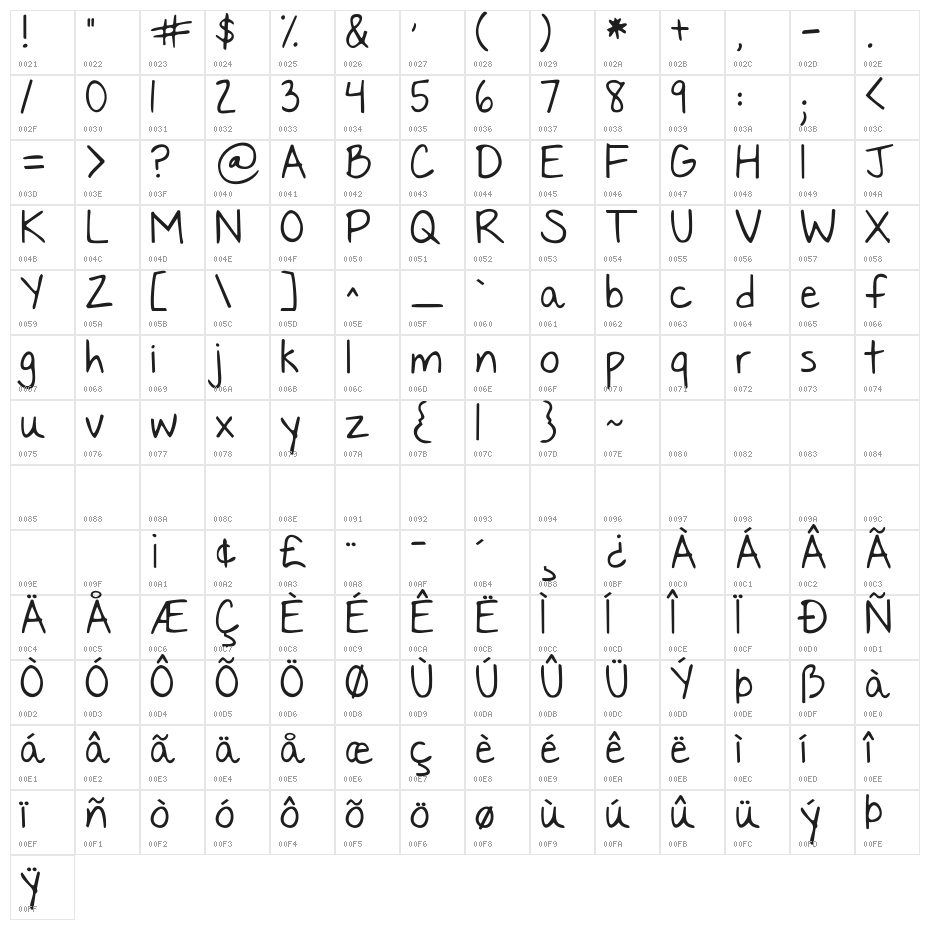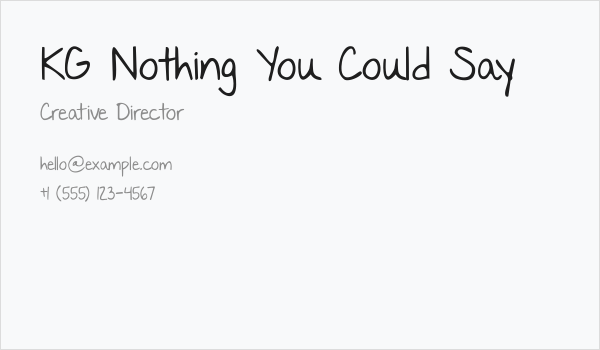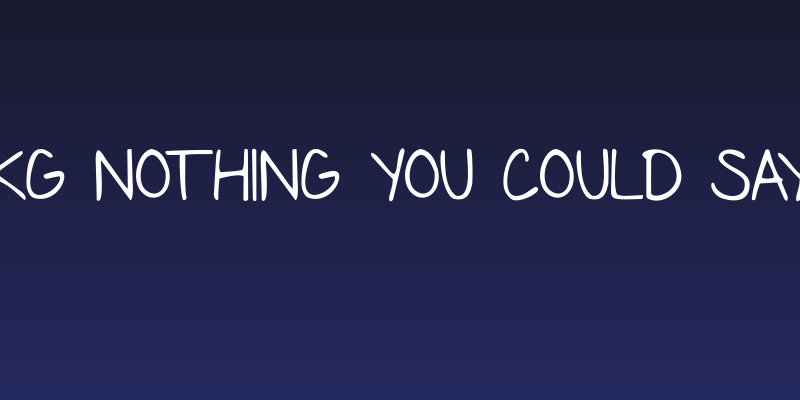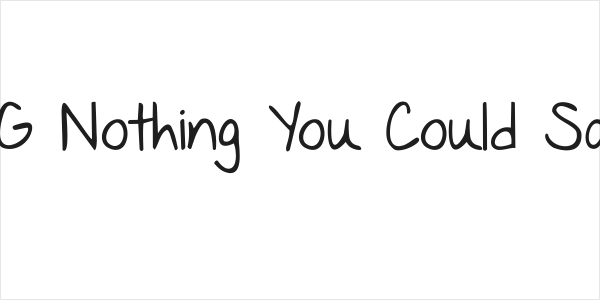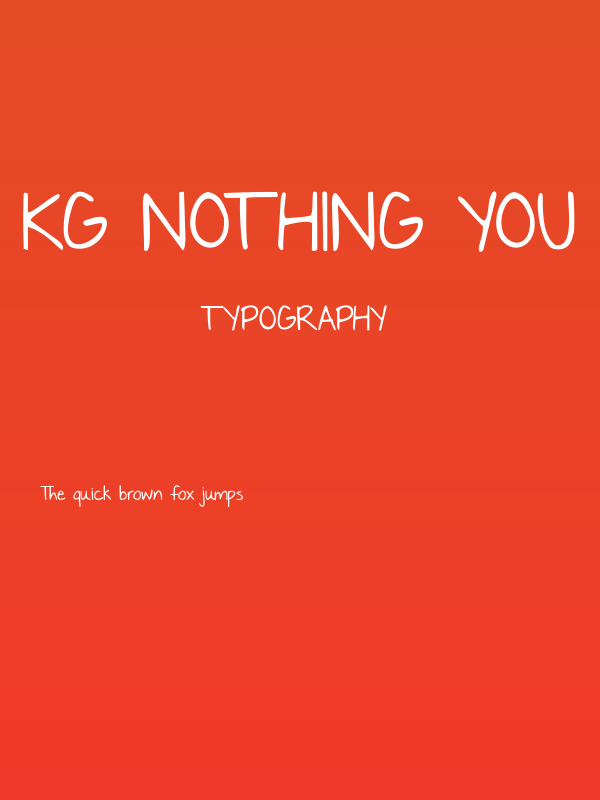
KG Nothing You Could Say Font
KG Nothing You Could Say Description
This playful and informal font features a handwritten style with a casual and friendly appearance. The letters are slightly irregular, giving it a personal touch that mimics natural handwriting. The uppercase and lowercase characters maintain a consistent flow, while the numbers and special characters are designed to complement the overall aesthetic. The strokes are smooth and rounded, adding to the approachable feel of the font. It's well-suited for projects that require a personal or whimsical touch, such as invitations, greeting cards, or children's books.
| Use Case | Headlines, Informal texts, Creative projects |
| Proposed Projects | Ideal for invitations, greeting cards, children's books, and any project needing a personal touch. |